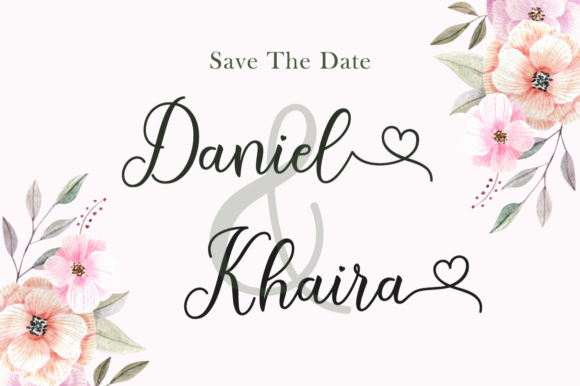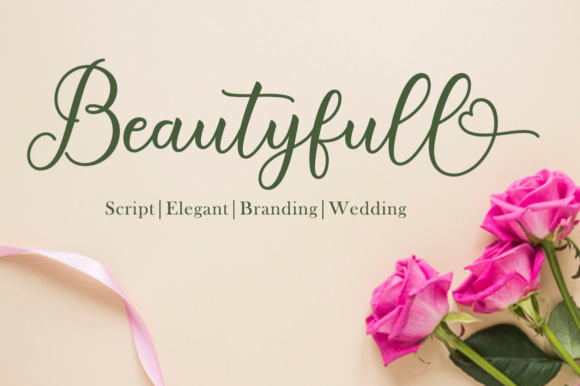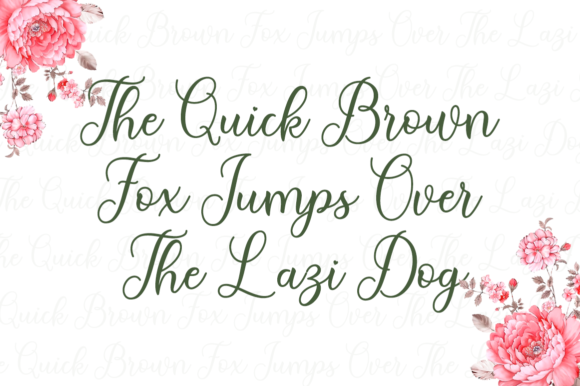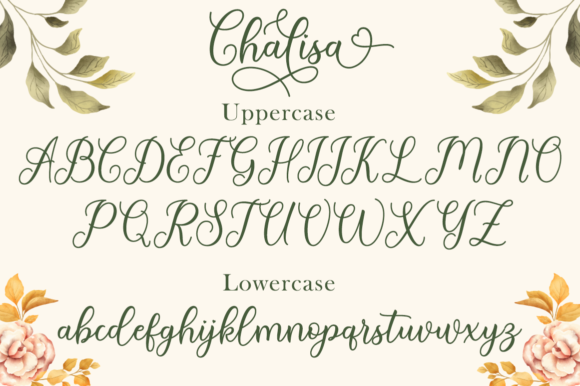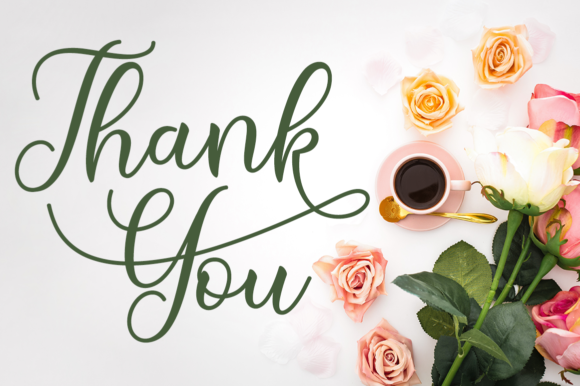
Introducing Chalisa Font: The Sweet and Soft Hand-Lettered Script for Stunning Crafts
Are you a designer, crafter, or DIY enthusiast looking for a font that can add a touch of sweetness and elegance to your projects? Look no further than Chalisa Font, a beautiful hand-lettered script that is sure to capture your heart. In this article, we’ll dive into the features and benefits of Chalisa Font, and explore how it can be used to create stunning crafts, from wedding invitations to social media posts.
What is Chalisa Font?
Chalisa Font is a sweet, soft hand-lettered script that is designed to bring a playful and authentic feel to your projects. The font features rounded characters that are carefully crafted to create a sense of warmth and friendliness. With its elegant and cursive flow, Chalisa Font is perfect for creating beautiful and eye-catching designs that require a personal touch.
Key Features of Chalisa Font
So, what makes Chalisa Font so special? Here are some of its key features:
- Gorgeous Swashes: Chalisa Font comes packed with stunning swashes that can add a decorative touch to your designs in seconds. With a range of swashes to choose from, you can easily create unique and eye-catching designs.
- PUA Encoded: Chalisa Font is PUA encoded, which means you can access all of the magical glyphs and swashes with ease. This makes it simple to use the font and get creative with your designs.
- Alternate Glyphs and Ligatures: The font features a wealth of special features, including alternate glyphs and ligatures. These allow you to add more variety and creativity to your designs, and create truly unique projects.
Uses for Chalisa Font
So, what can you use Chalisa Font for? The possibilities are endless, but here are some ideas to get you started:
- Wedding Invitations: Create beautiful and elegant wedding invitations that set the tone for the big day. With Chalisa Font, you can add a touch of sweetness and romance to your designs.
- Stationary Art: Use Chalisa Font to create stunning stationary art, including cards, journals, and planners. The font’s elegant flow and playful characters make it perfect for adding a personal touch to your designs.
- Social Media Posts: Add a touch of elegance and sophistication to your social media posts with Chalisa Font. The font’s eye-catching design and playful characters make it perfect for creating engaging and shareable content.
- Greeting Cards: Create cute and personalized greeting cards for special occasions, including birthdays, holidays, and more. Chalisa Font’s sweet and soft design makes it perfect for creating heartfelt and meaningful cards.
Why Choose Chalisa Font?
So, why should you choose Chalisa Font for your next project? Here are just a few reasons:
- Unique and Authentic Design: Chalisa Font features a unique and authentic design that is sure to stand out from the crowd. Its playful and elegant flow makes it perfect for creating stunning crafts and designs.
- Easy to Use: The font is PUA encoded, making it easy to access all of the magical glyphs and swashes. This means you can focus on creating, rather than getting bogged down in complicated font files.
- Versatile: Chalisa Font is versatile and can be used for a range of projects, from wedding invitations to social media posts. Its elegant design and playful characters make it perfect for adding a personal touch to your designs.
| Font Name | Chalisa Font |
| Author | Greentype |
In conclusion, Chalisa Font is a beautiful and versatile hand-lettered script that is perfect for designers, crafters, and DIY enthusiasts. With its sweet and soft design, gorgeous swashes, and PUA encoding, it’s easy to see why Chalisa Font is a must-have for anyone looking to add a touch of elegance and sophistication to their projects. Whether you’re creating wedding invitations, stationary art, social media posts, or greeting cards, Chalisa Font is the perfect choice. So why wait? Download Chalisa Font today and start creating stunning crafts that will capture your audience’s heart!